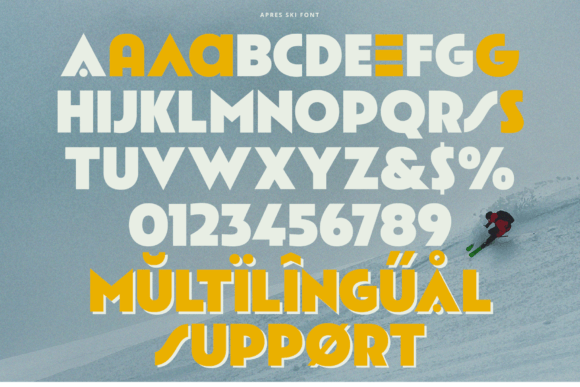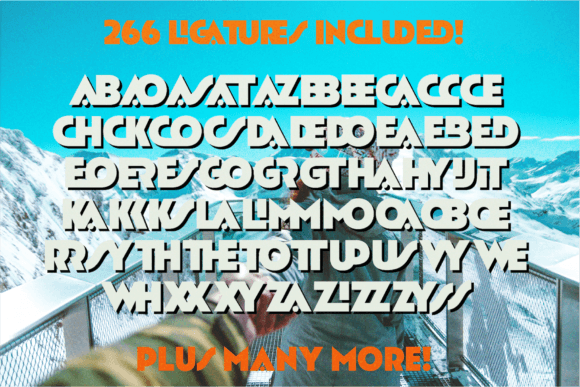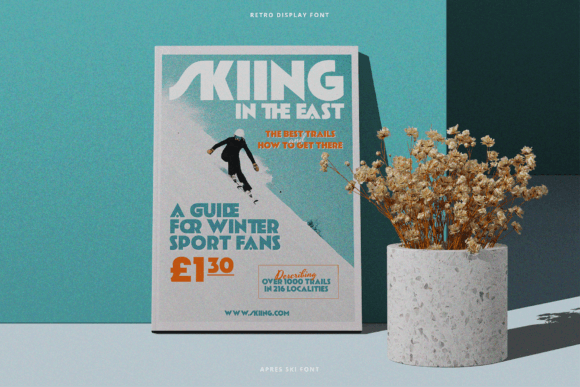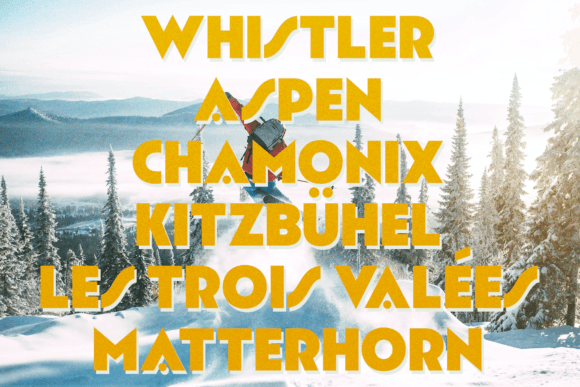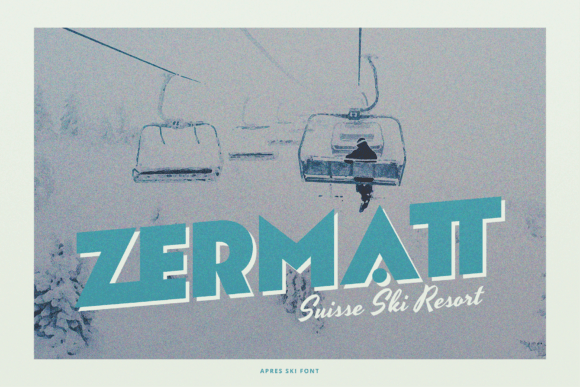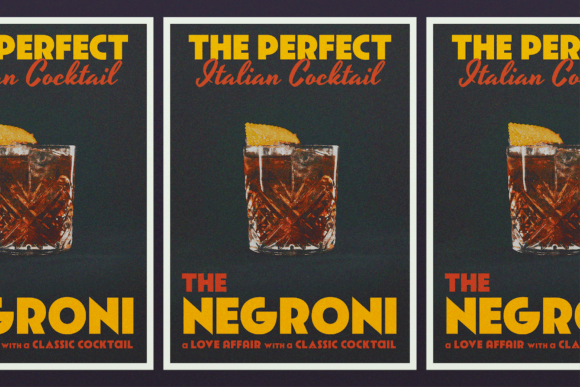
Introducing Après Ski Font: The Ultimate Retro Display Font for Your Design Needs
Are you looking for a font that can add a touch of vintage charm to your designs? Look no further than Après Ski Font, a bold retro display font that will transport you back in time. With its strong, bold lines and 266 ligatures, this font is perfect for any project that needs a dash of nostalgia and eye-catching appeal.
Après Ski Font is designed to be versatile and can be used in a variety of design applications. Whether you’re a designer, crafter, or DIY enthusiast, this font is ideal for adding a retro twist to your branding, posters, graphics, and other visual projects. The font’s bold lines and classic style make it perfect for headlines, titles, and other eye-catching designs that demand attention.
Key Features of Après Ski Font
- Bold Retro Style: Après Ski Font features a bold, retro style that is sure to add a touch of vintage charm to your designs.
- 266 Ligatures: With 266 ligatures, this font is highly versatile and can be used in a variety of design applications.
- Perfect for Headlines and Titles: The strong, bold lines of Après Ski Font make it an ideal choice for headlines and titles that need to stand out.
Why Choose Après Ski Font?
There are many reasons why Après Ski Font is the perfect choice for your design needs. Here are just a few:
- Adds a Touch of Vintage Charm: Après Ski Font adds a touch of vintage charm to your designs, making it perfect for projects that need a retro twist.
- Highly Versatile: With 266 ligatures, Après Ski Font is highly versatile and can be used in a variety of design applications.
- Perfect for Eye-Catching Designs: The strong, bold lines of Après Ski Font make it perfect for eye-catching designs that demand attention.
How to Use Après Ski Font
Using Après Ski Font is easy. Here are a few tips to get you started:
- Use it for Headlines and Titles: Après Ski Font is perfect for headlines and titles that need to stand out.
- Add a Retro Twist to Your Branding: Use Après Ski Font to add a retro twist to your branding and give your designs a boost of nostalgia.
- Create Eye-Catching Posters and Graphics: Après Ski Font is perfect for creating posters and graphics that demand attention.
If you’re looking for a font that can add a touch of vintage charm to your designs, look no further than Après Ski Font. With its bold retro style, 266 ligatures, and PUA encoding, this font is perfect for any project that needs a dash of nostalgia and eye-catching appeal. So why wait? Give your designs a boost of nostalgia with Après Ski Font today!
Whether you’re a designer, crafter, or DIY enthusiast, Après Ski Font is the perfect choice for your design needs. Its versatility, ease of use, and eye-catching style make it an ideal choice for a wide range of design applications. So why not give it a try and see how it can elevate your designs to the next level?